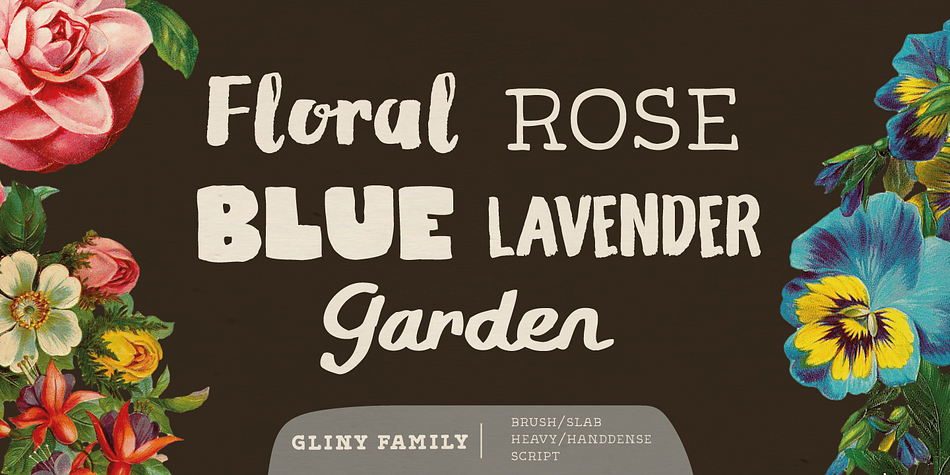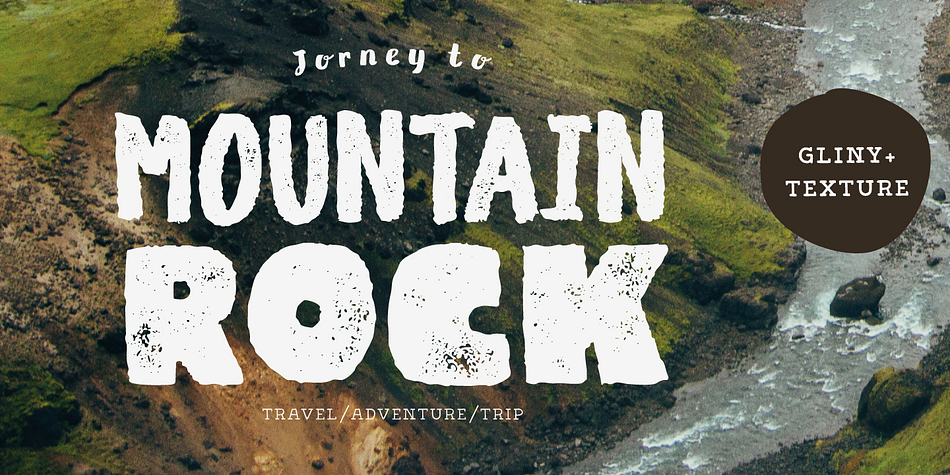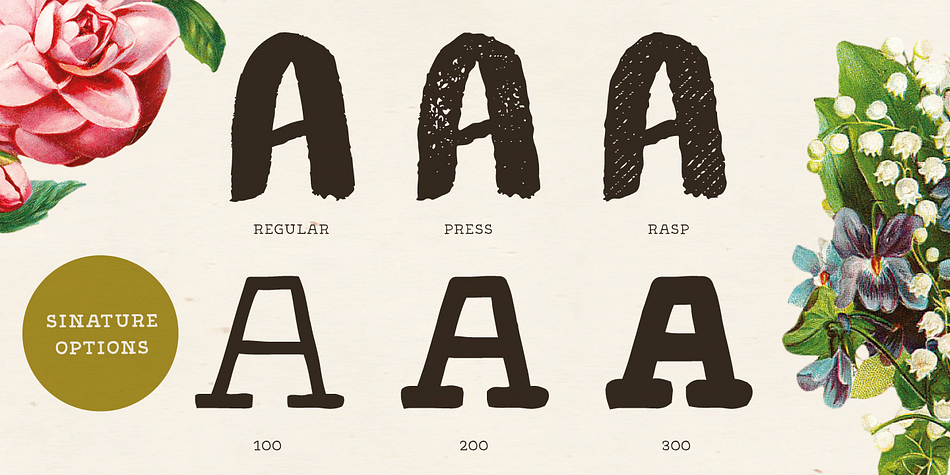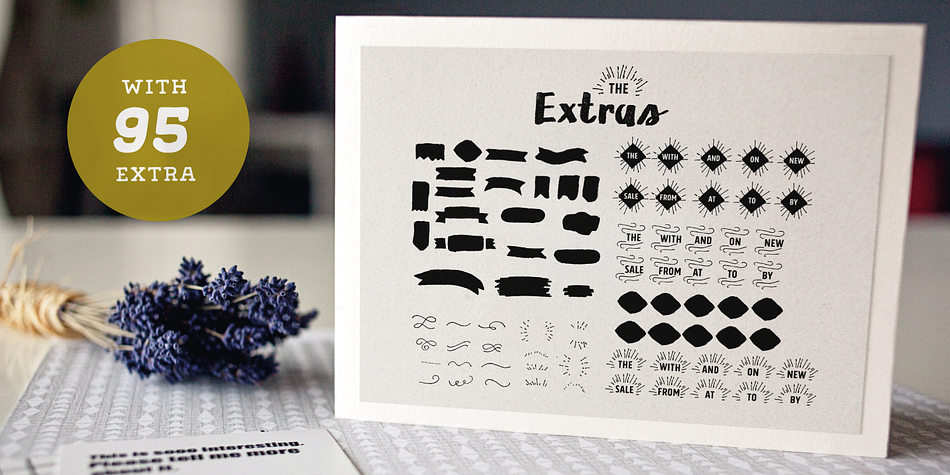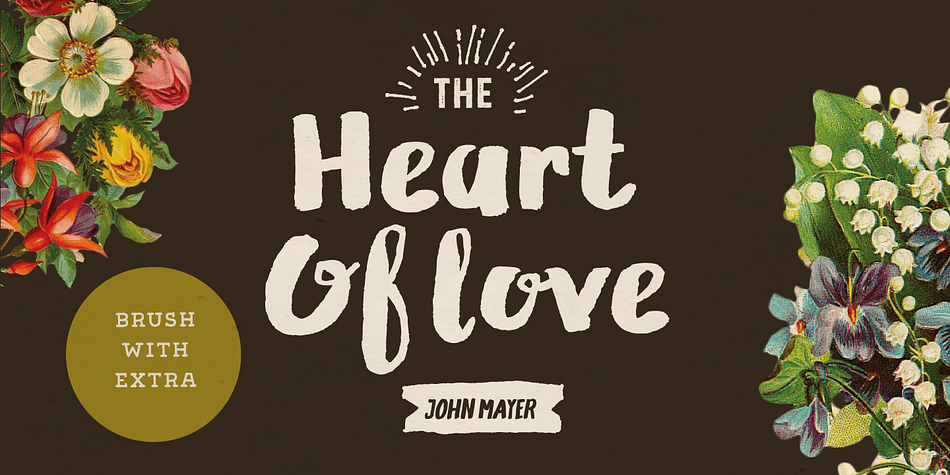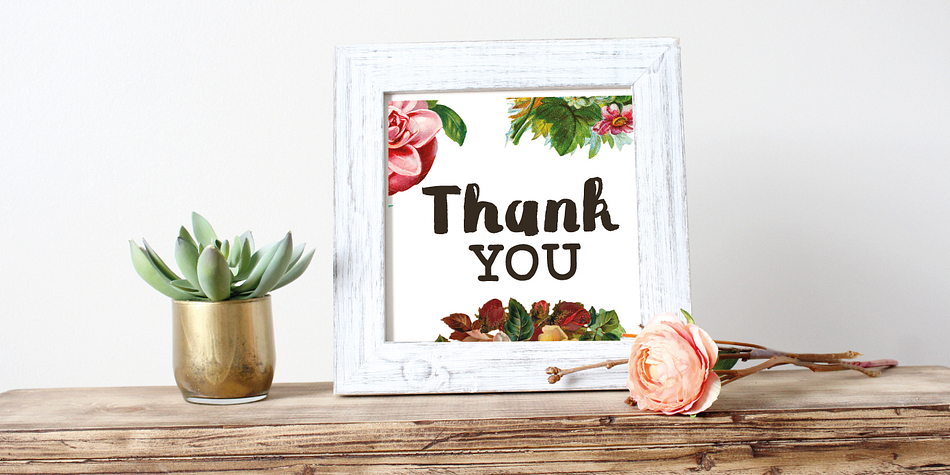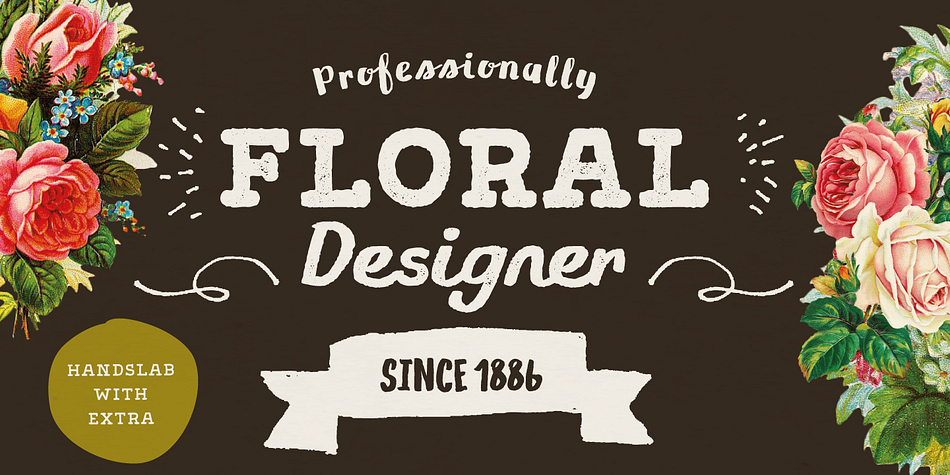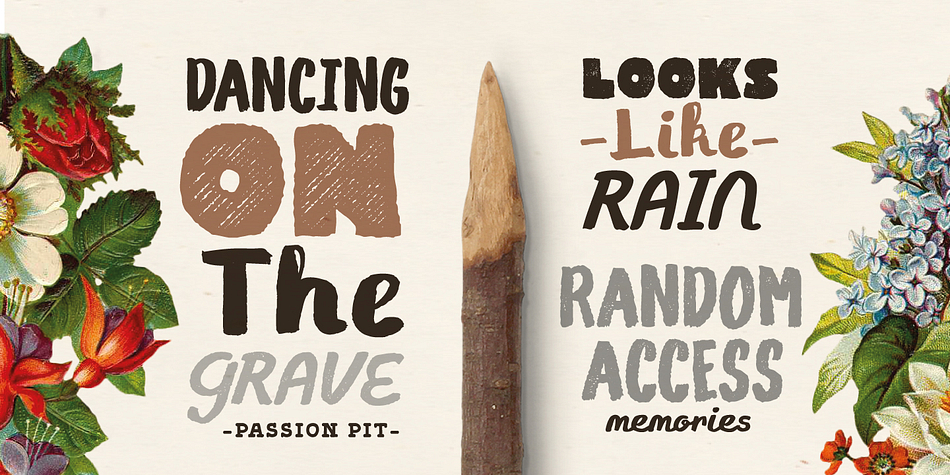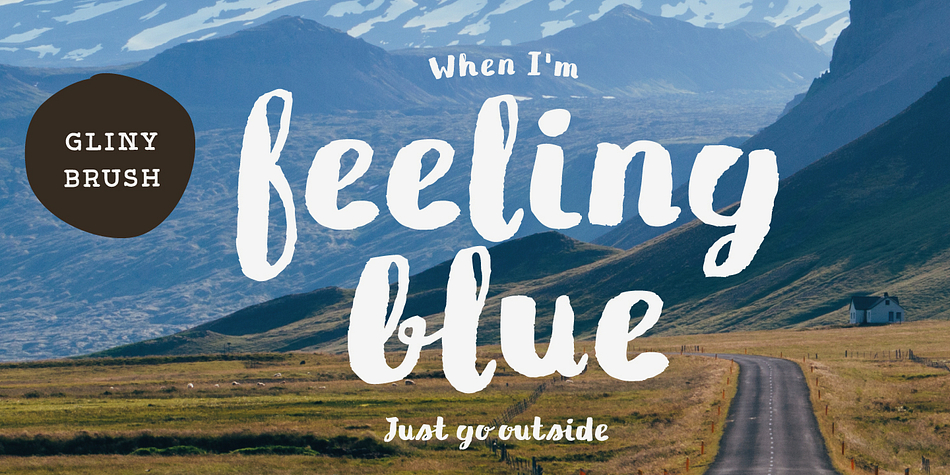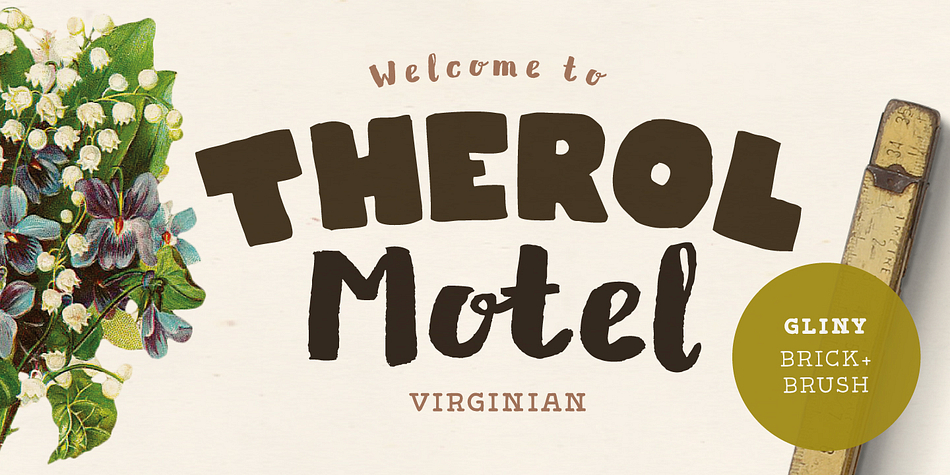
Gliny is a multiple classification font family. This typeface has thirty-two styles and was published by Typesketchbook.
Gliny was created by mixing different styles of handwriting fonts that derived from various tools such as pen, markers, drafting pens, painting brushes, writing brush and etc. In order to develop a new and diverse font styles.
We also keep incomplete details and uneven textures that resulted from a writing process. We provide various font styles to help you mix and match them to suit your creative work harmoniously.
Gliny comes with different font families such as brush, slab serif, heavy, handmade script for making your amazing work !!